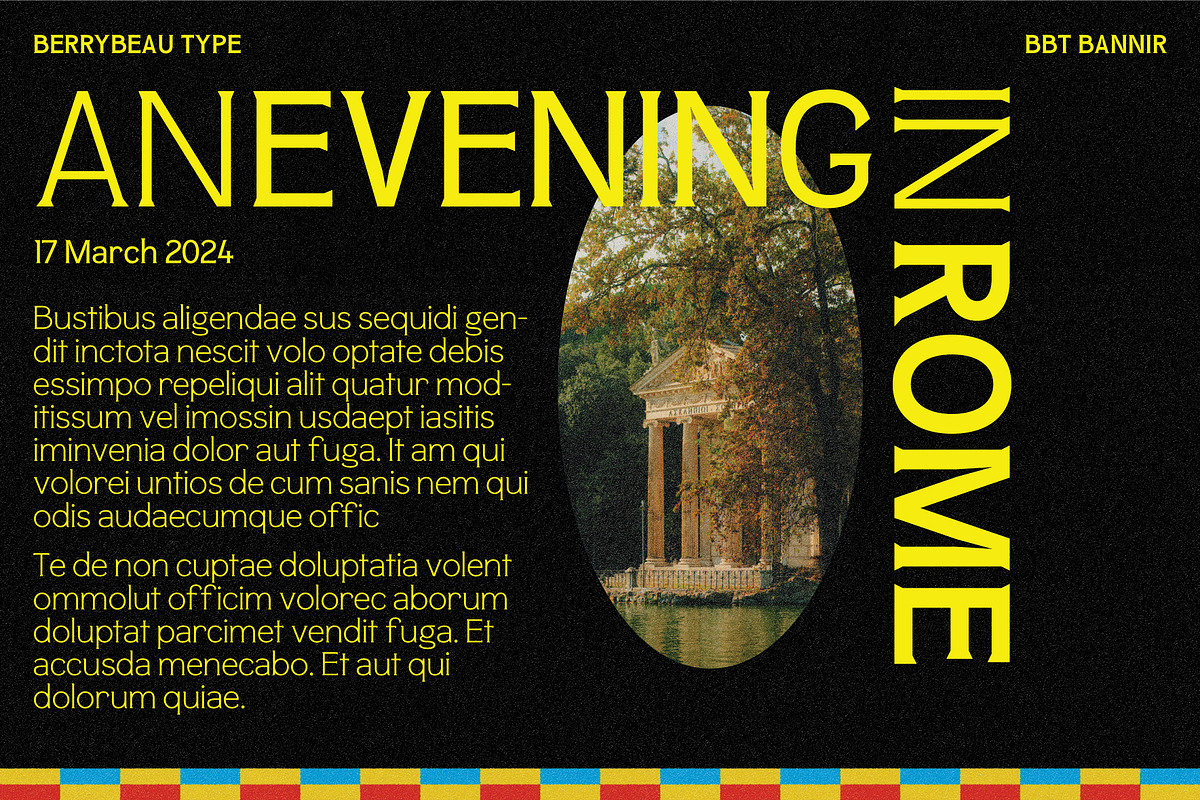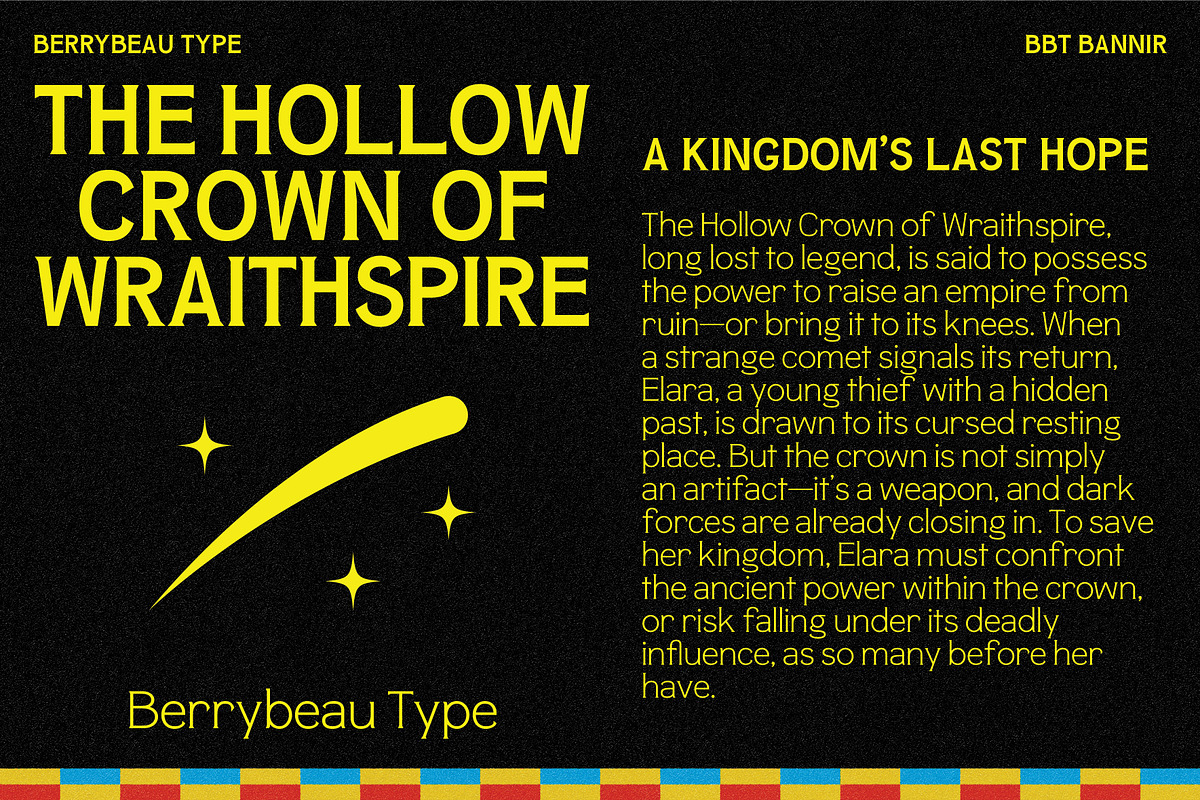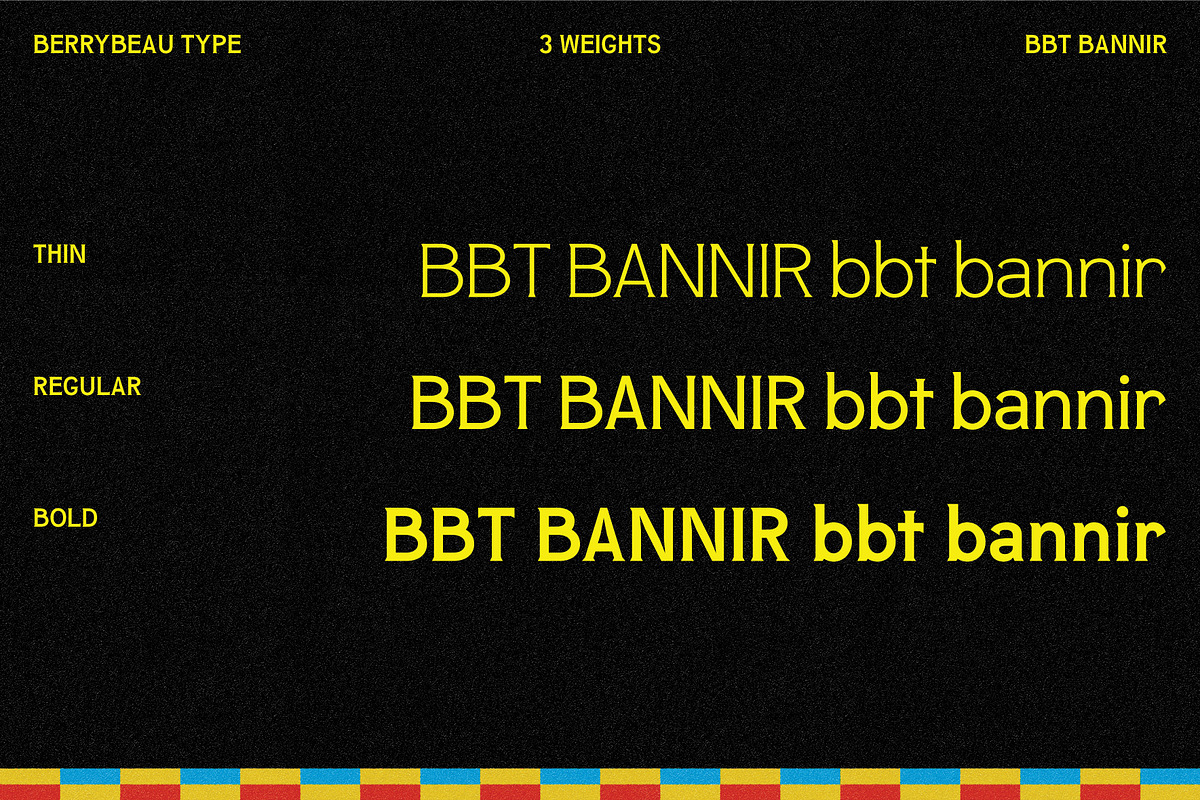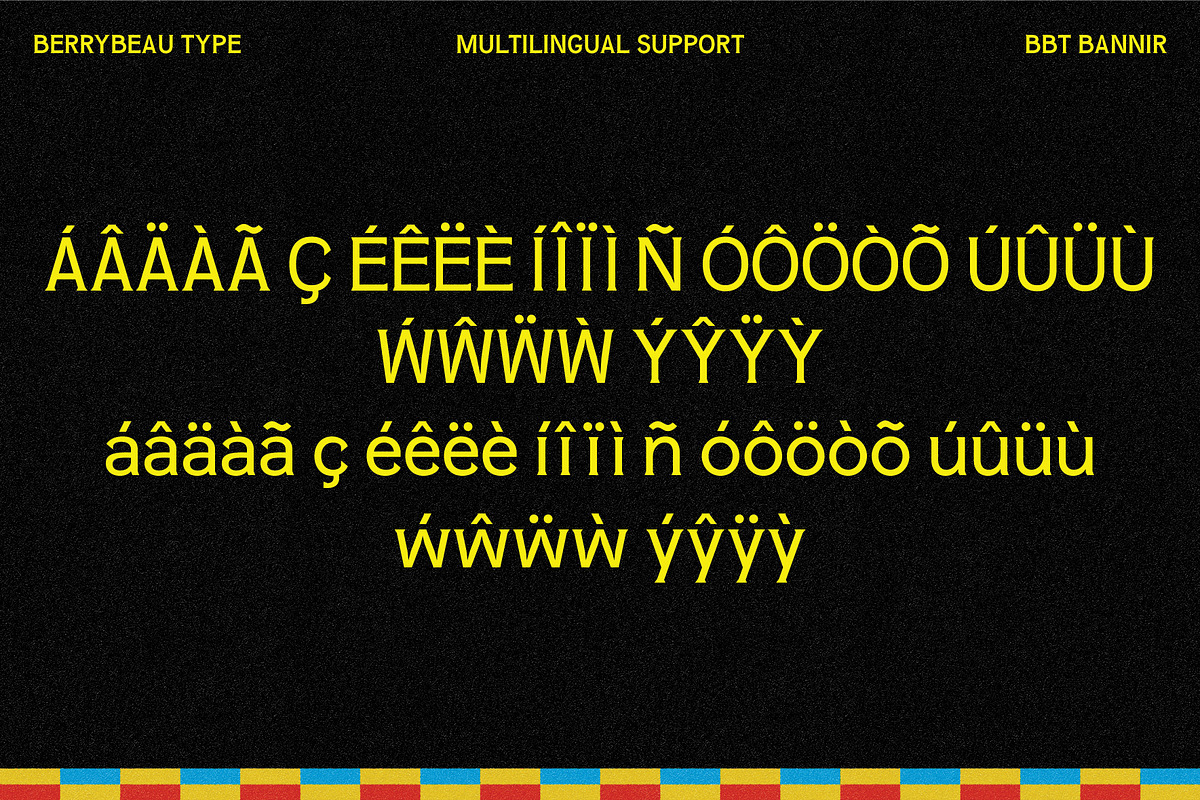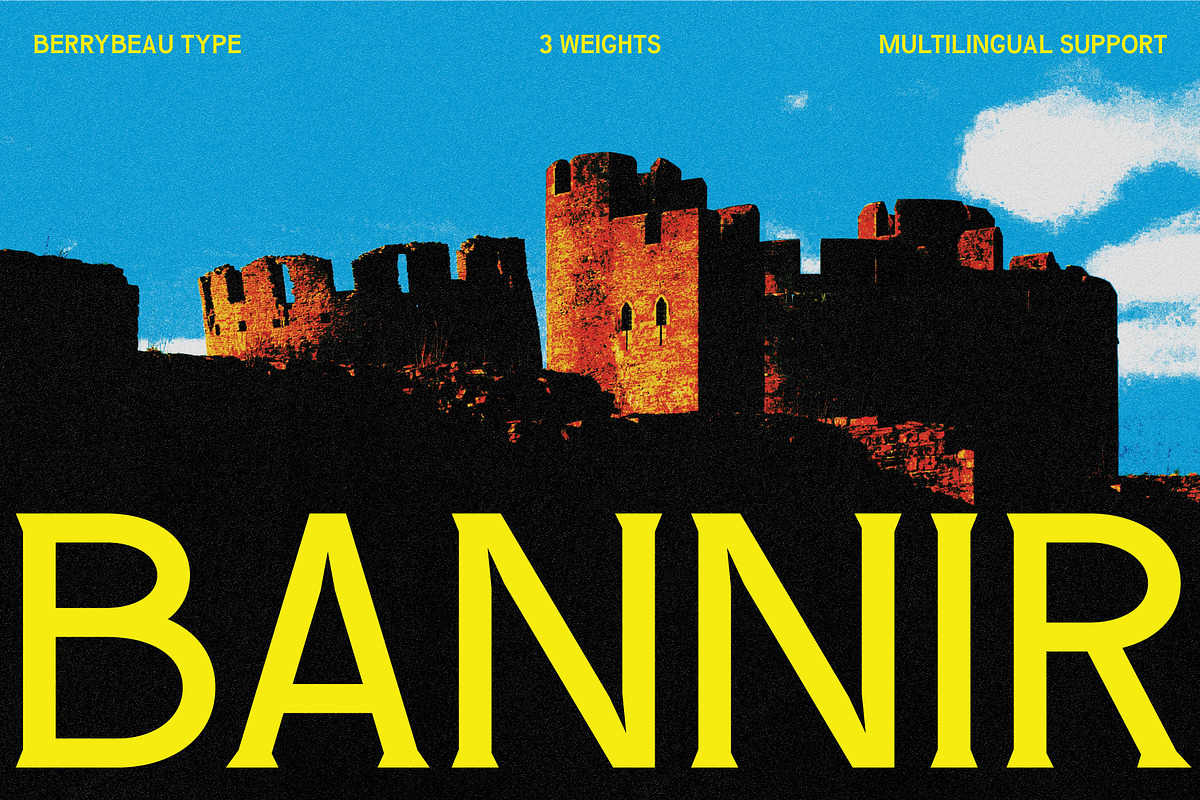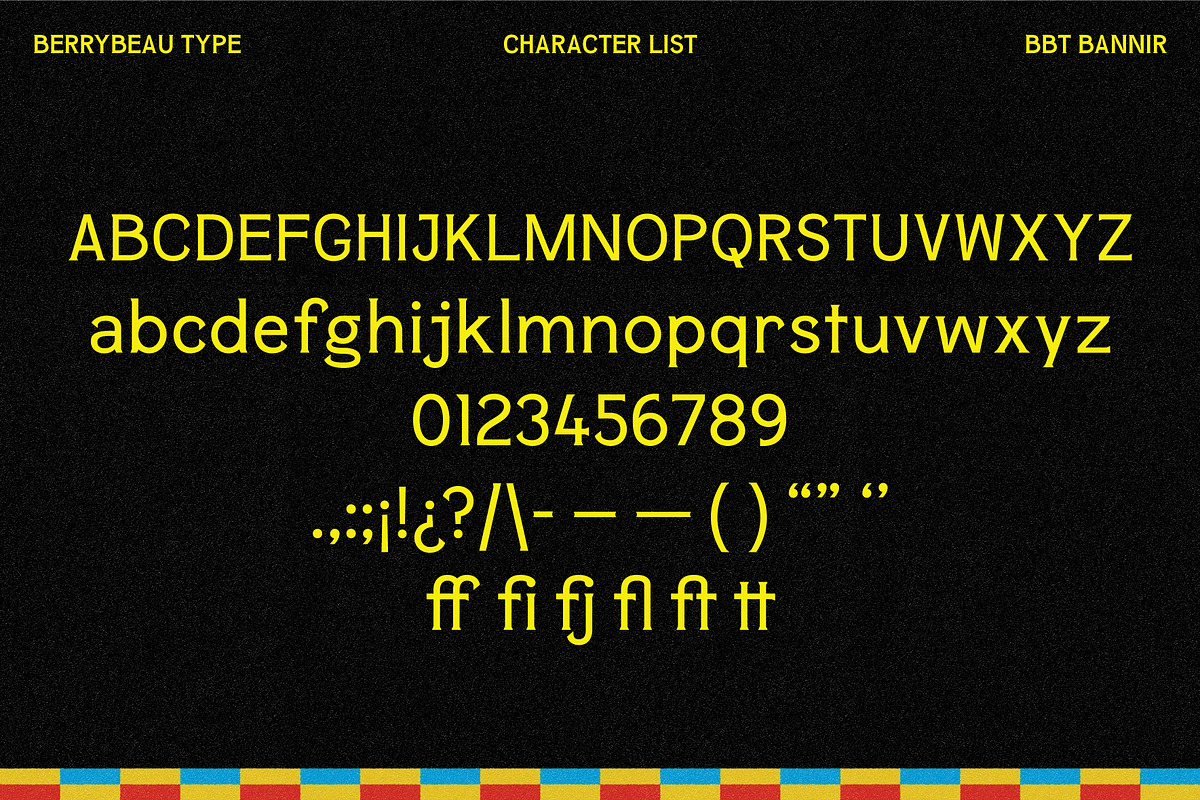
BBT Bannir
Introducing BBT Bannir, a timeless and versatile modern serif font. BBT Bannir has been specifically crafted with smooth counters and sharp triangular serifs. With multiple weight options available, BBT Bannir is the go-to choice for designers who want versatility matched with a timeless aesthetic.
- Multiple Weights (Thin, Regular, Bold)
- Multilingual Support (ÁÂÄÀÃ Ç ÉÊËÈ Í Î Ï Ì Ñ ÓÔÖÒÕ ÚÛÜÙ ẂŴẄẀ ÝŶŸỲ áâäàã ç éêëè í î ï ì ñ óôöòõ úûüù ẃŵẅẁ ýŷÿỳ)